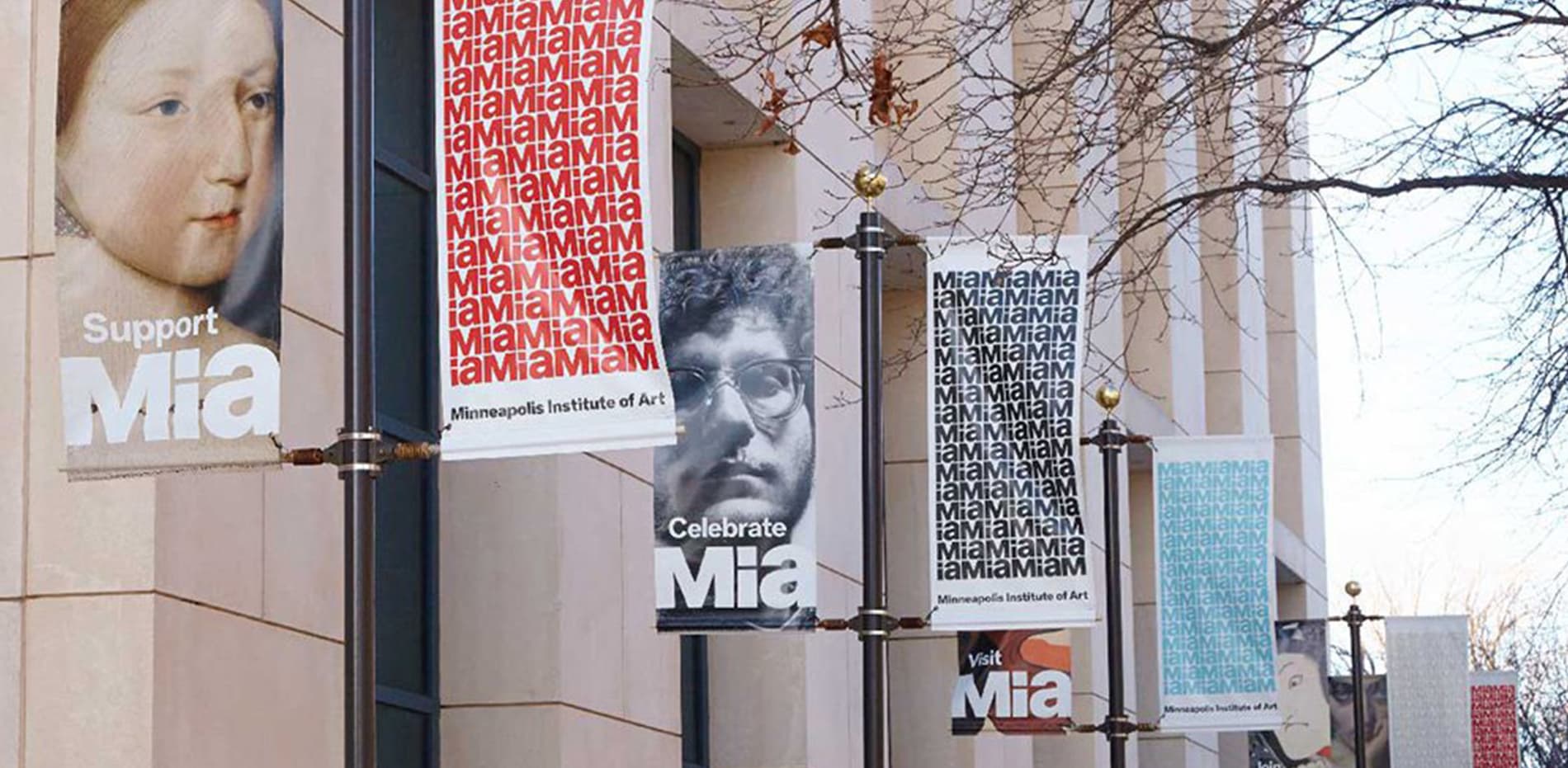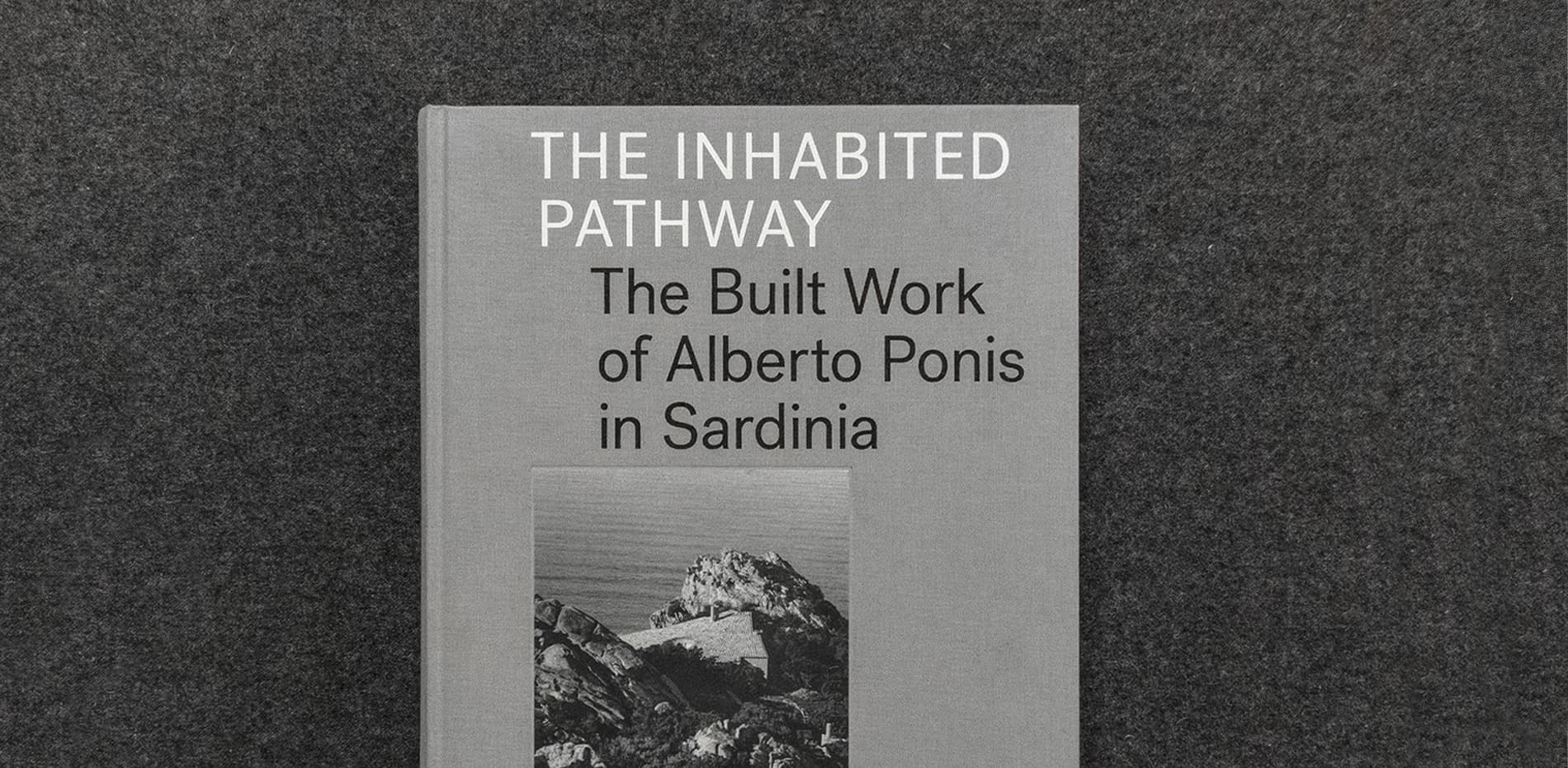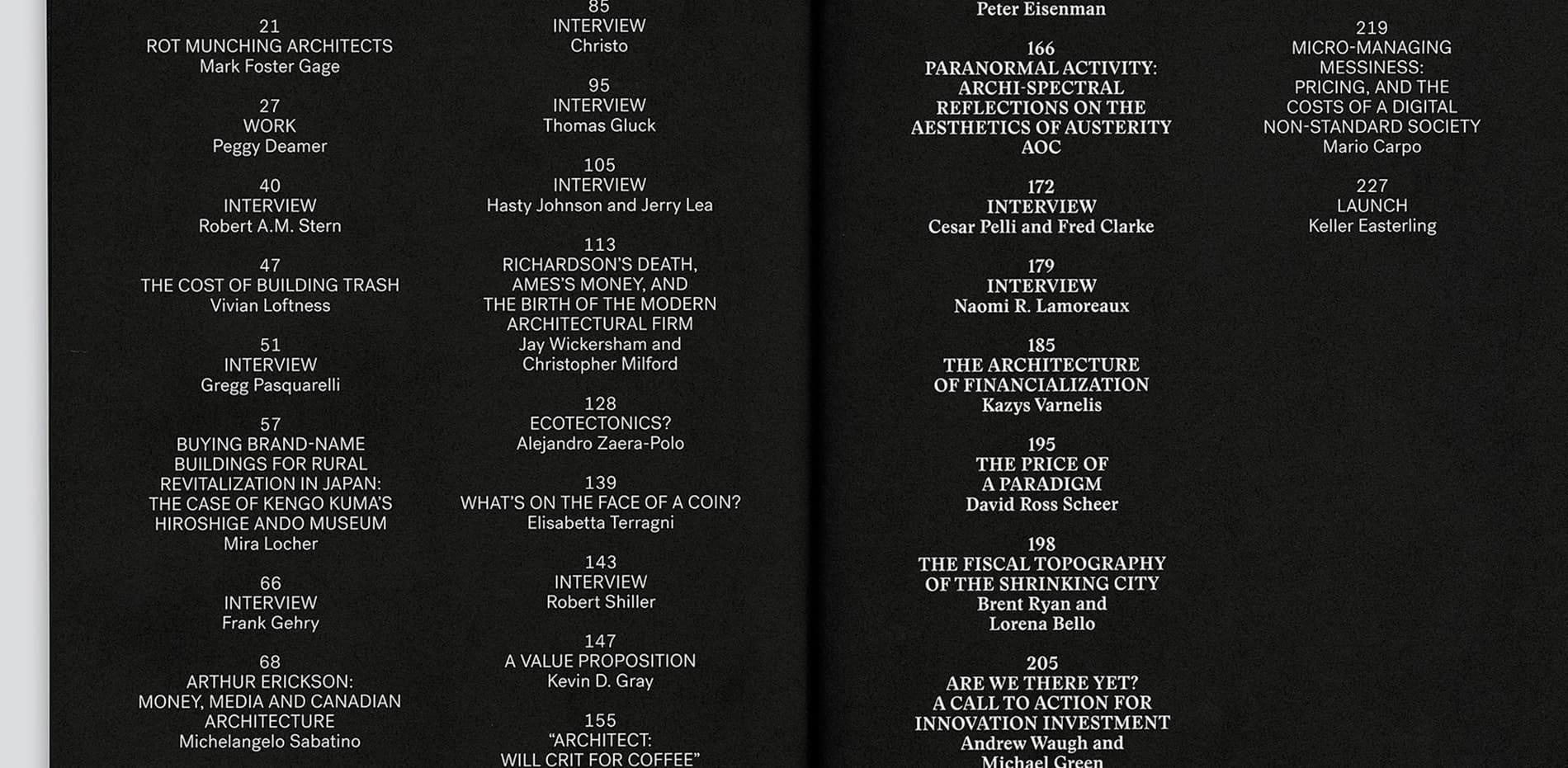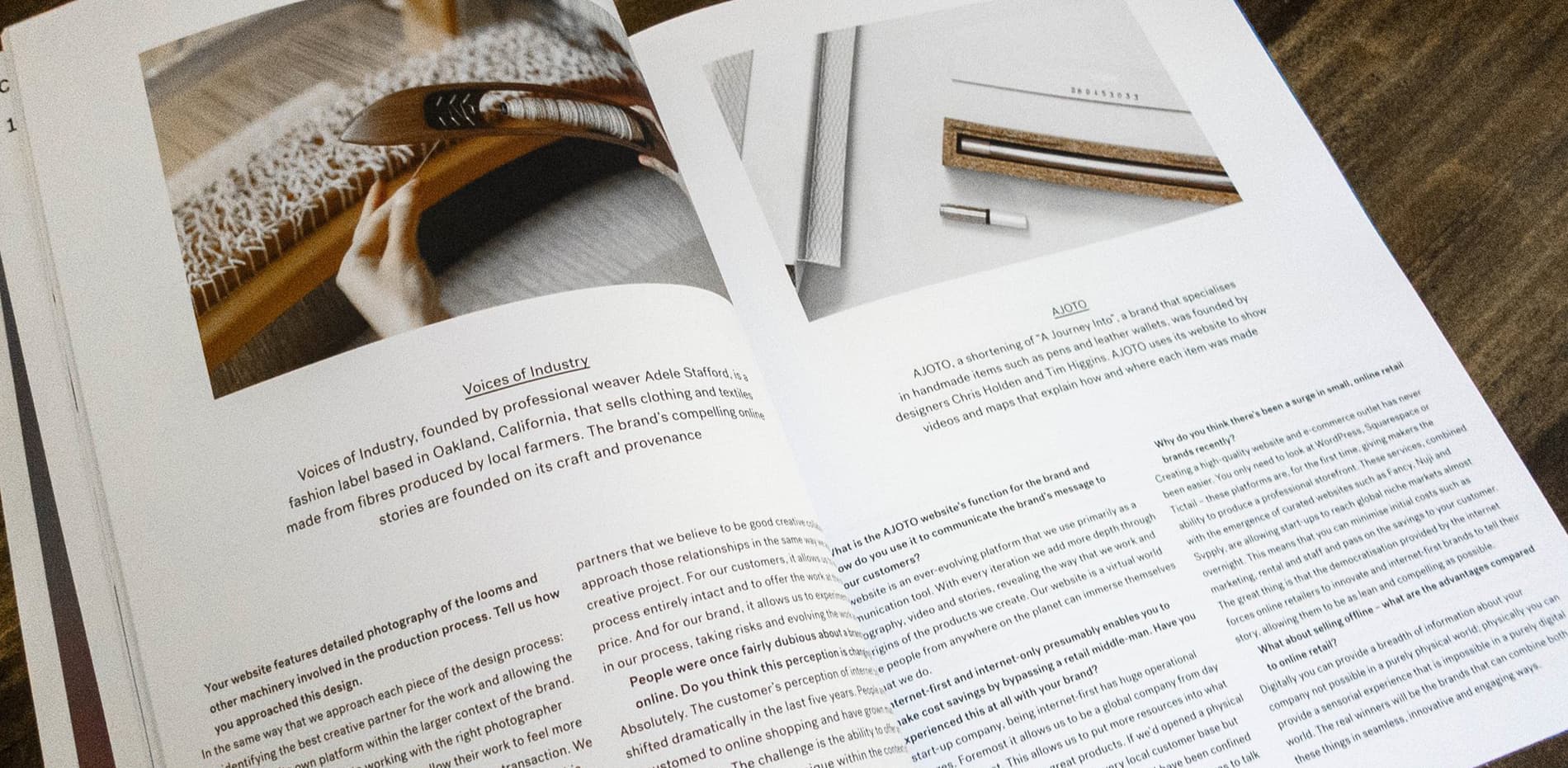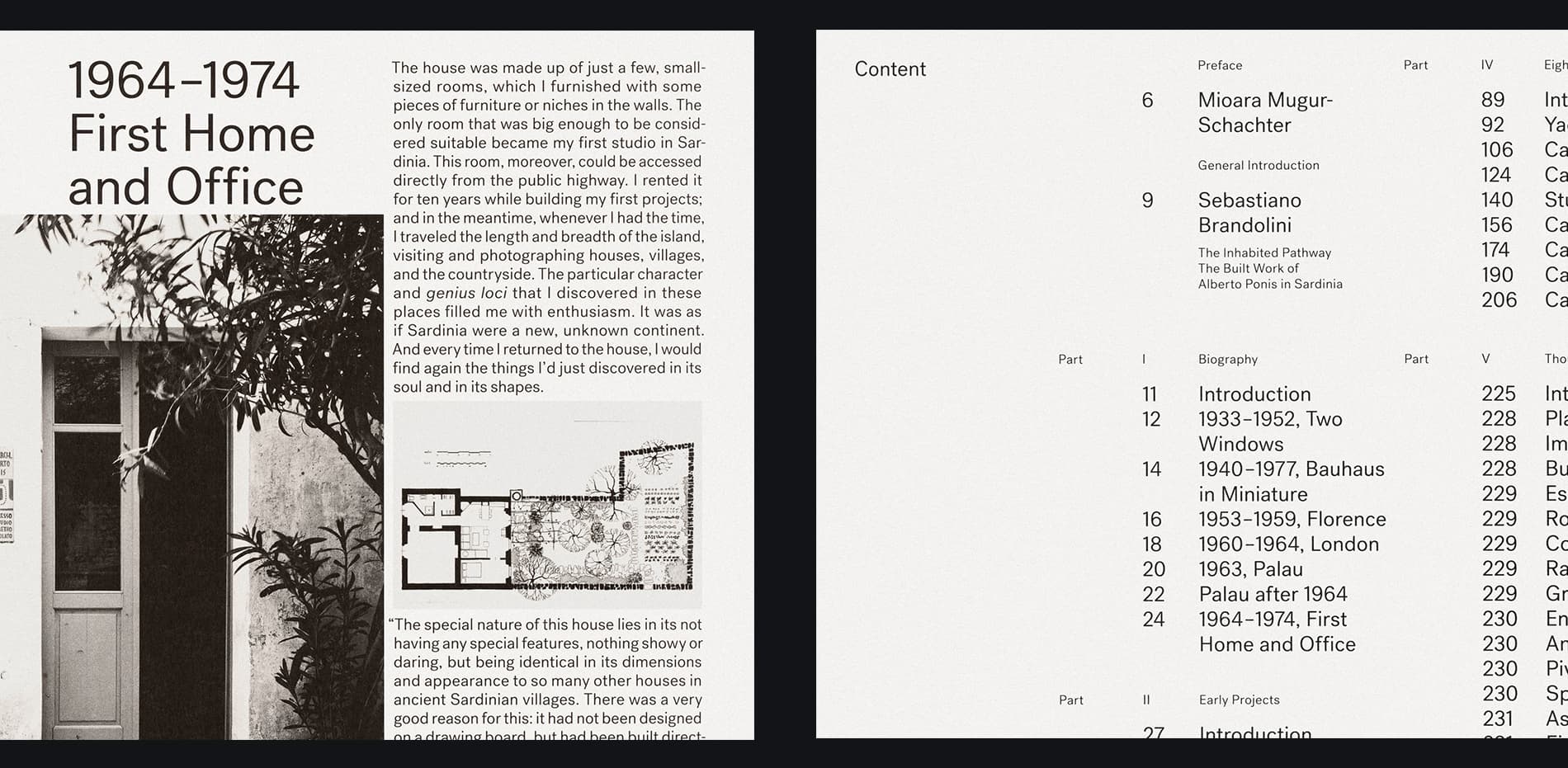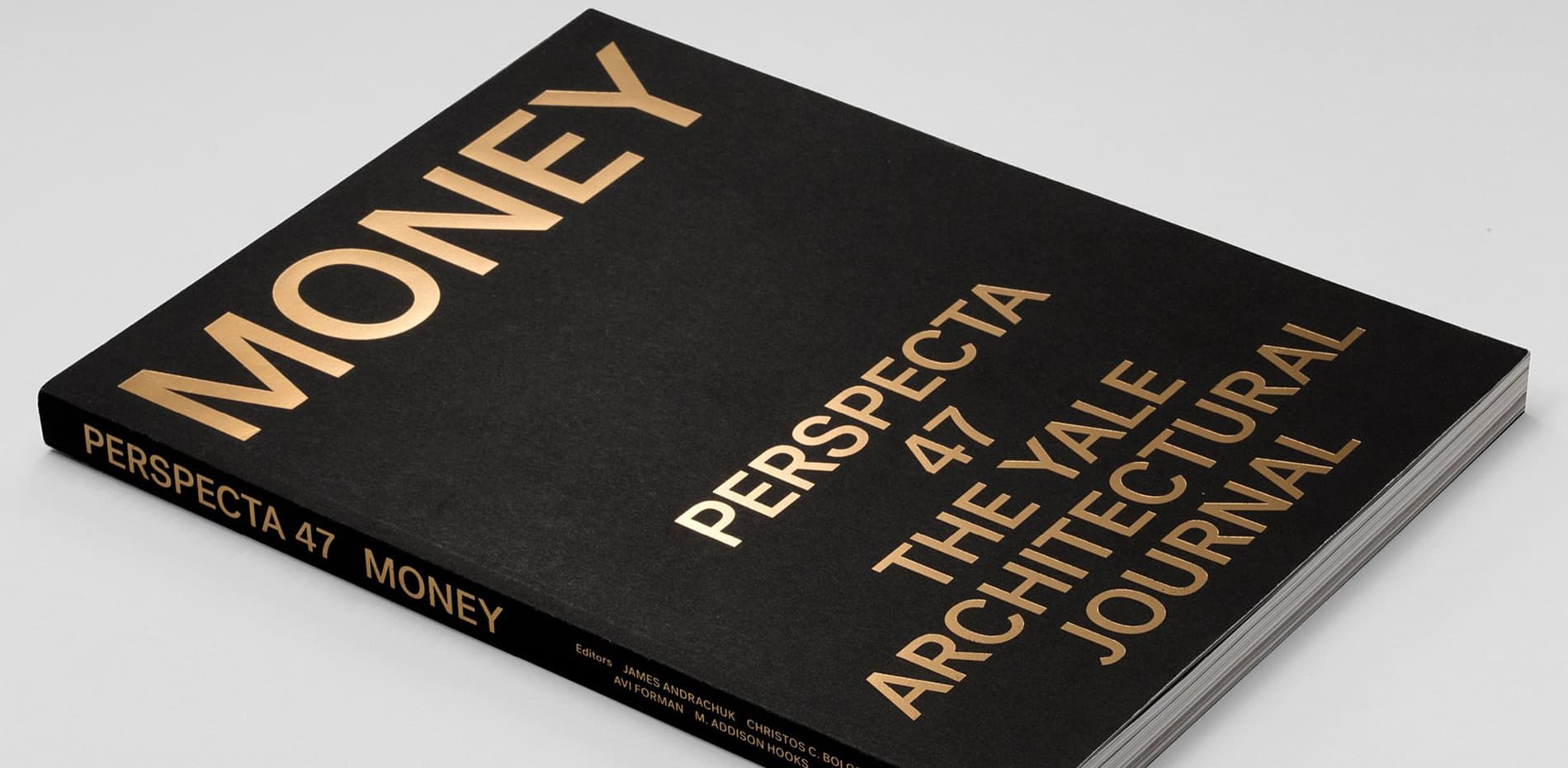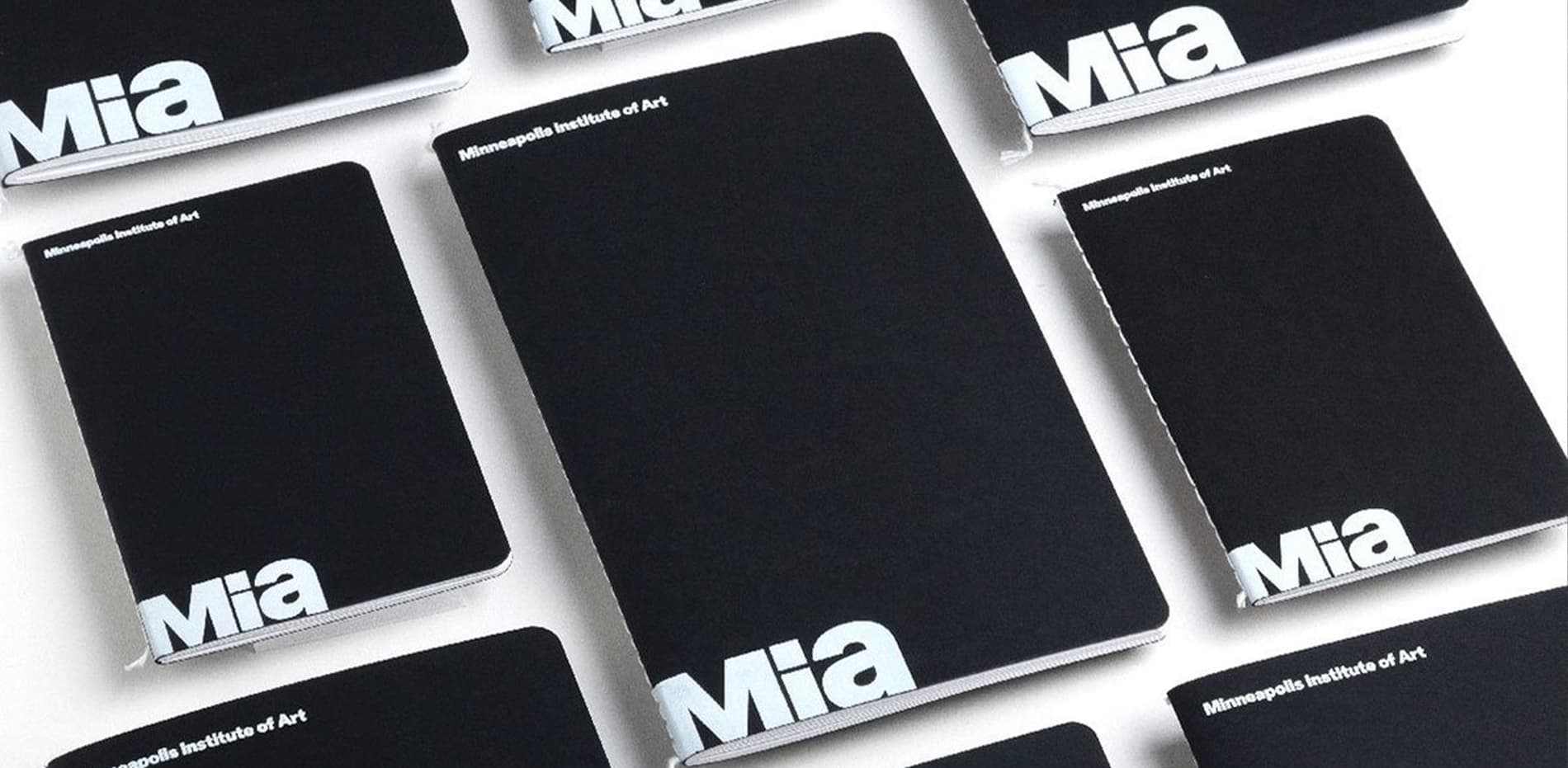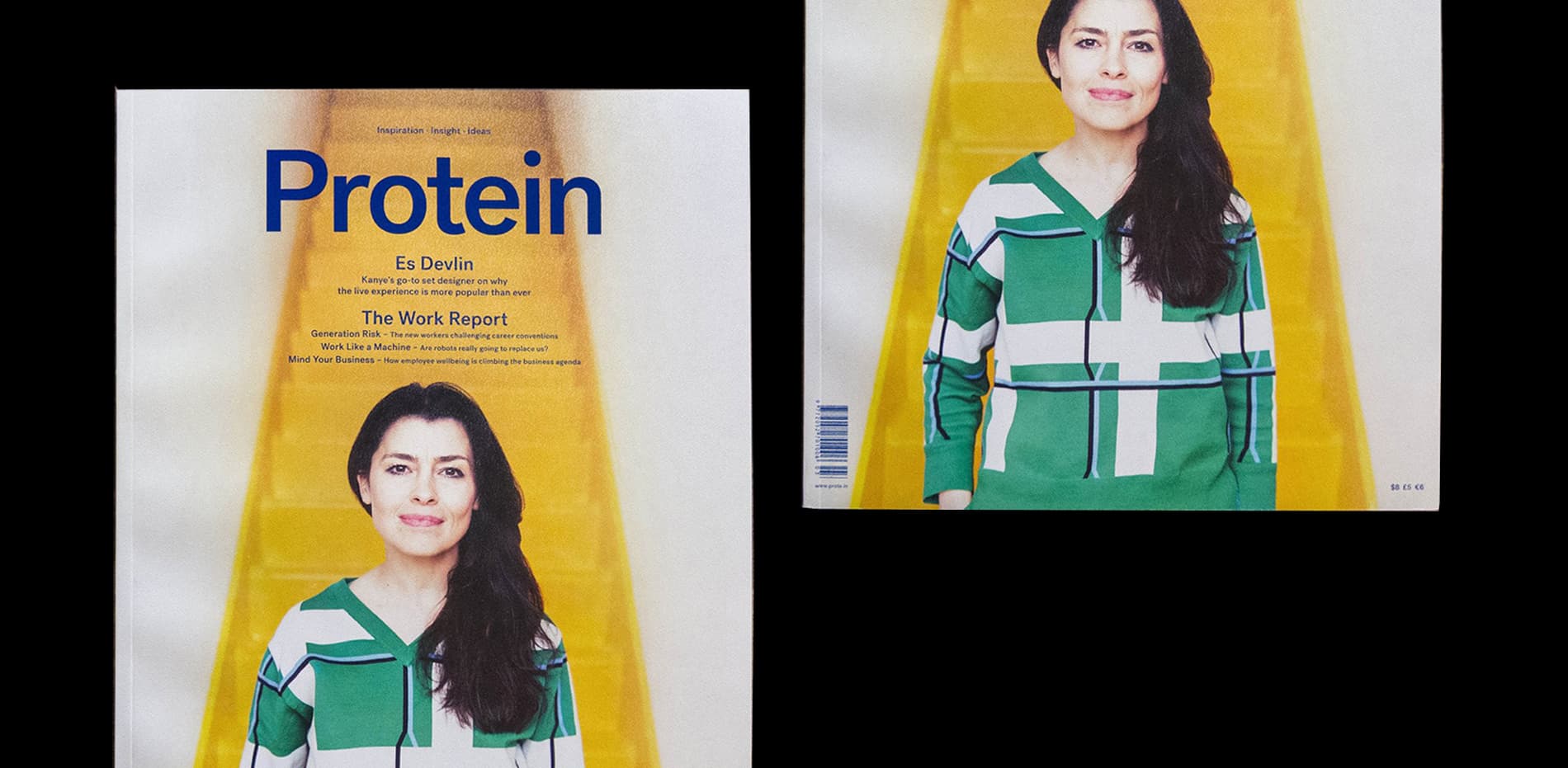
Post Grotesk
Josh Finklea began work on Post Grotesk in 2011 with the goal of designing a contemporary version of the traditional grotesk sans-serif for his own use. The intention was to build an amiable typeface with maximum usability and an overall sense of neutrality. Finklea is a graphic designer whose work emphasizes restraint, rationality, and functionality. Post Grotesk is a careful and conservative study of the typographic genre he found himself using most frequently in his own work, incorporating his own sensibilities and refined aesthetic, as well as addressing common issues found when working with the standard faces of the grotesk and neo-grotesk genres.
Designed By Josh Finklea
In use for Yale Perspecta 47